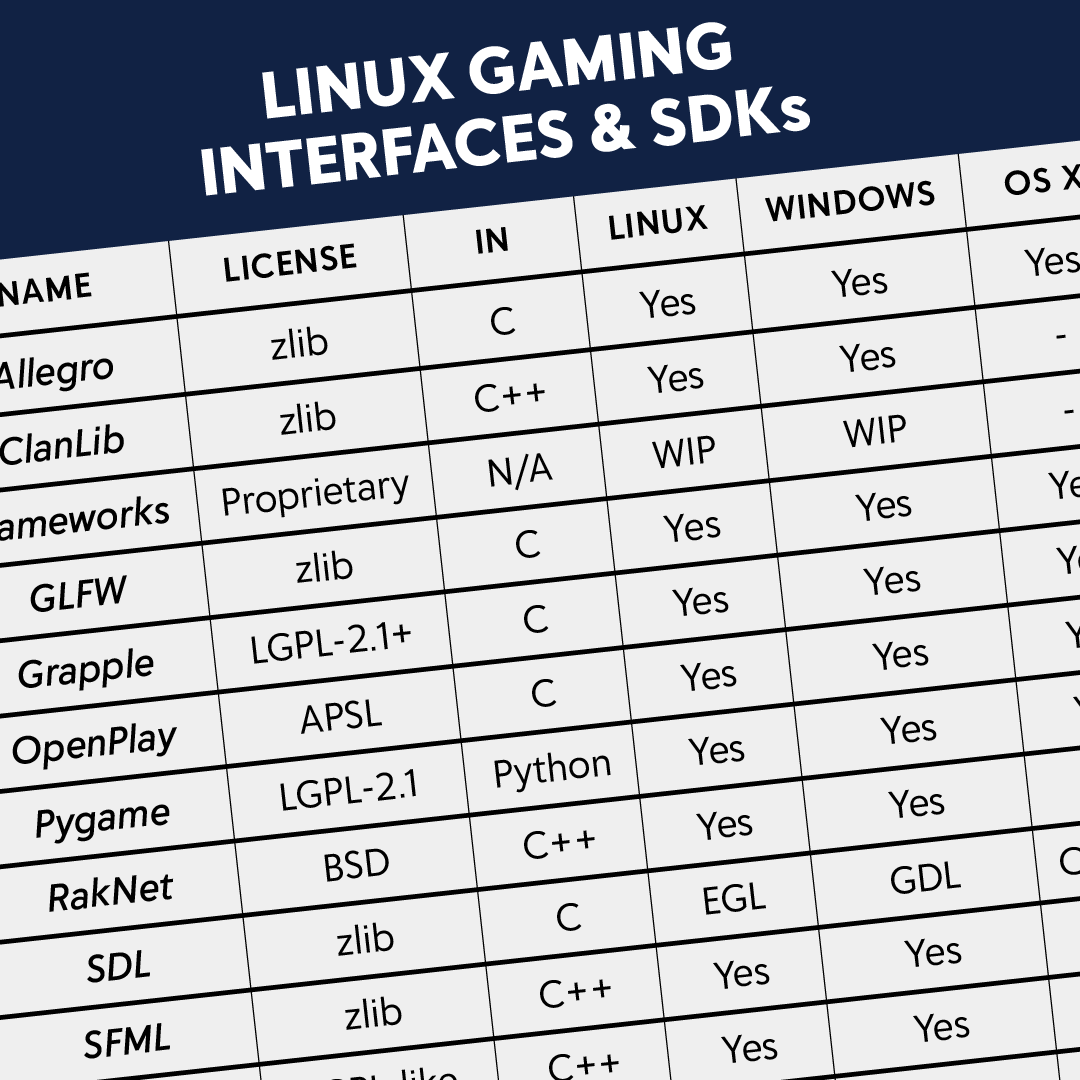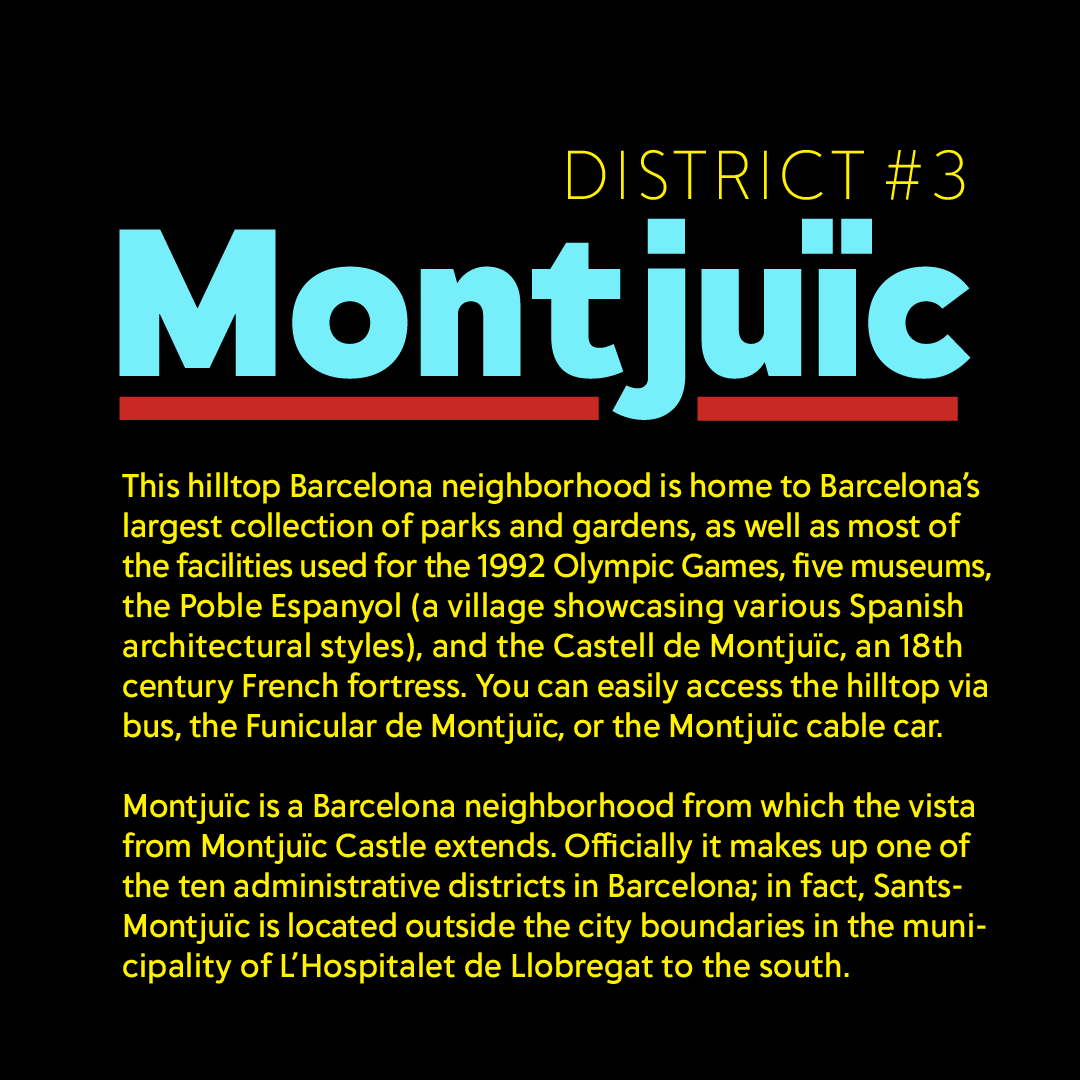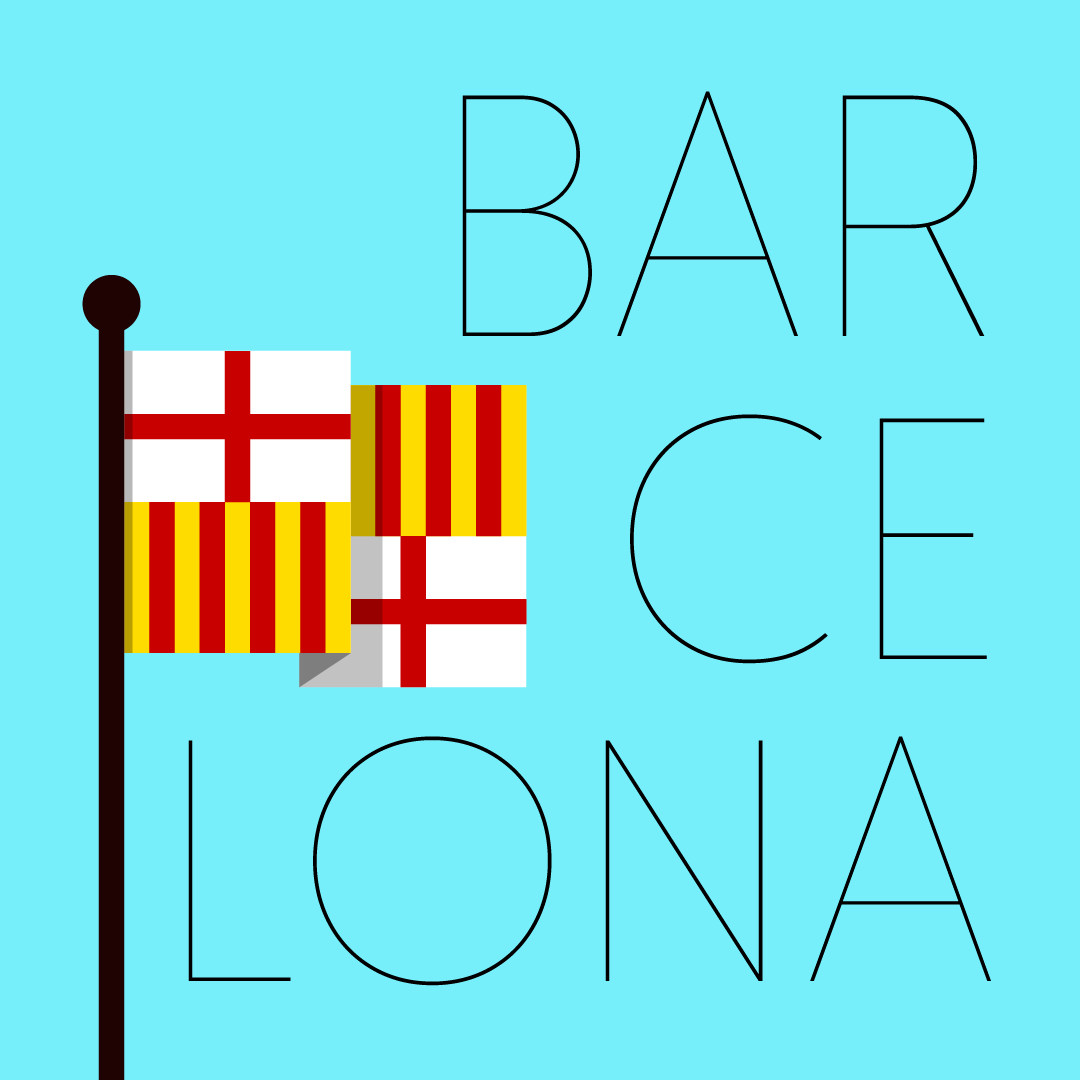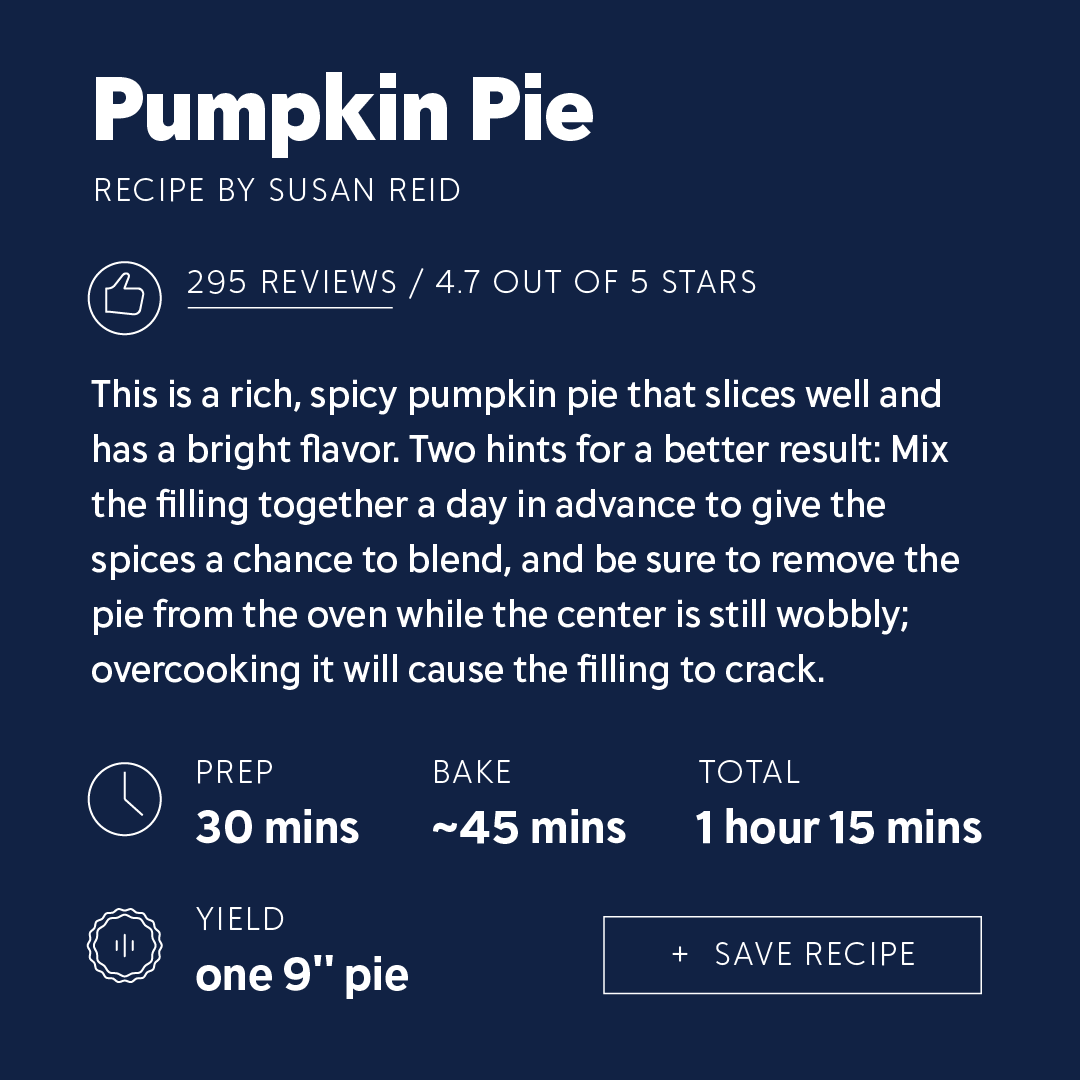
Tome Sans®
An approachable typeface
with a professional demeanor.
Designed by Delve Withrington
Tome Sans is a large typeface intended for everyday use, by everyone. With 10 weights plus italics, and a set of over 866 glyphs supporting 314 languages, you will find it ready to bring your communications into the global market.
Inconspicuous, but not lacking in character.
Story
Tome Sans was created to address the in-house need for a sans-serif design that combines appealing, discreet forms and useful features that in toto perform both dutifully and beautifully across multiple environs. Setting aside the larger discussion of aesthetic neutrality in a typeface, Tome Sans’ conscious aim is to be inconspicuous — not a novelty typeface created to capitalize on design trends. Instead, it is timeless, with clarity, versatility, and reliability as its distinct hallmarks.
This award winning typeface* has a range of 10 weights from ExtraThin to Black with companion italics and boasts a Latin Plus glyph repertoire of over 860 glyphs. Among those glyphs are several sets of numerals (including Tabular and Oldstyle figures), arrows, and a trove of letters spanning several complete Unicode® ranges supporting 314 languages. In addition, a host of thoughtful but unobtrusive OpenType features are built in and ready to assist with setting your composition. Give Tome Sans a spin; you’ll agree this family is a valuable typographic toolset for any designer.
Features
Oldstyle Figures
Tabular Figures
Stylistic Alternates
Arrows
Additional features include: Standard Ligatures, Slashed Zero, Localized Forms, Subscript, Superscript, Numerators, Denominators, Fractions, Ordinals, Lining Figures, Proportional Figures, Case-Sensitive Forms, Capital Spacing, and Contextual Alternates.
Variable Font Features
Tome Sans Variable